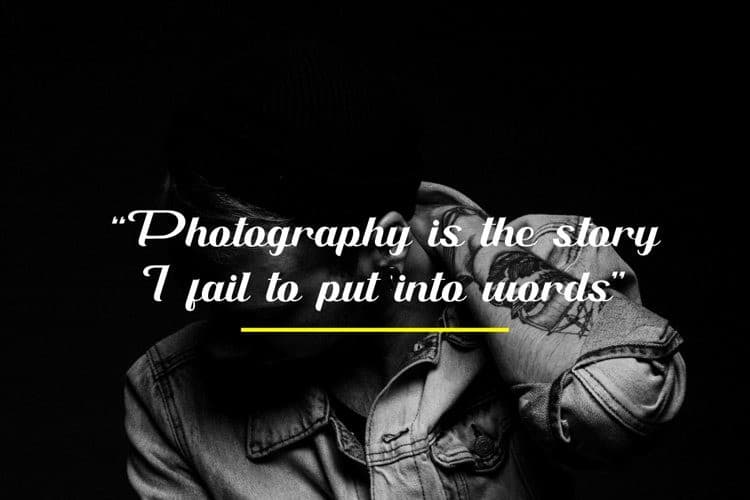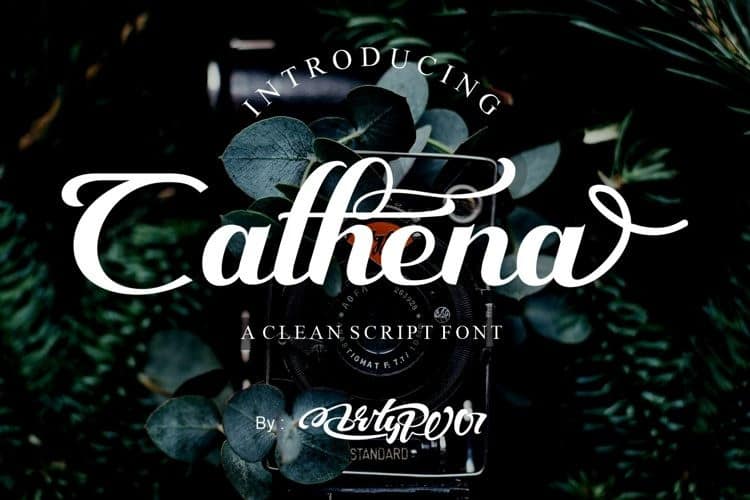
Cathena Script Font
Introducing “Cathena Script Font” – elegant script font with elegant look. It’s designed and shared by artype07. And it’s a modern script with sweet touches and beautiful curves in each letter. It features a bold, authoritative, luxurious, modern and premium nature. If you want to make beautiful word for headline or display, you can use opentype features to access alternate letters.
Cathena is great for wedding invitations. magazines, logos, signatures, photography watermarks.